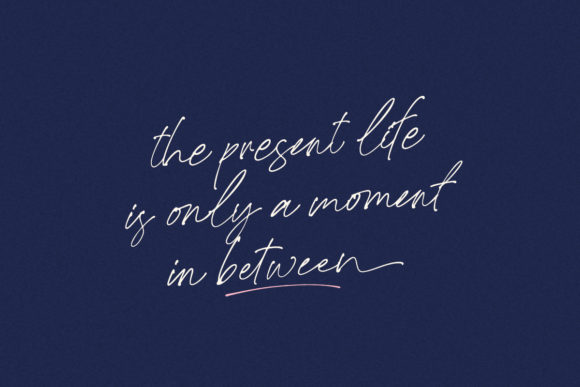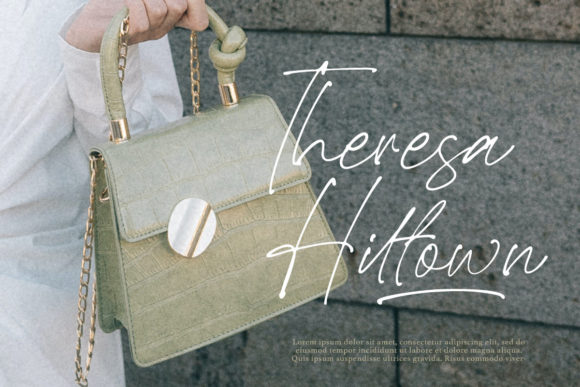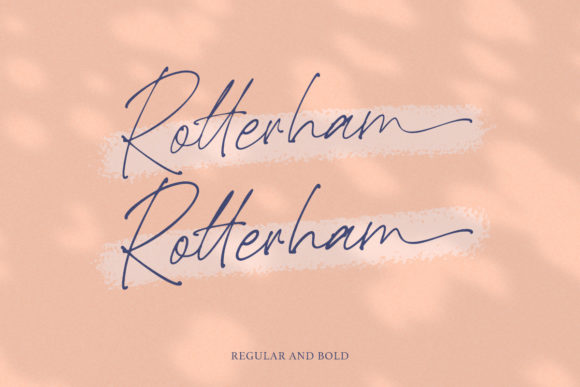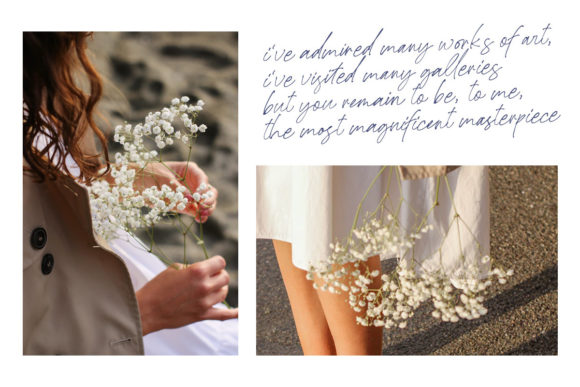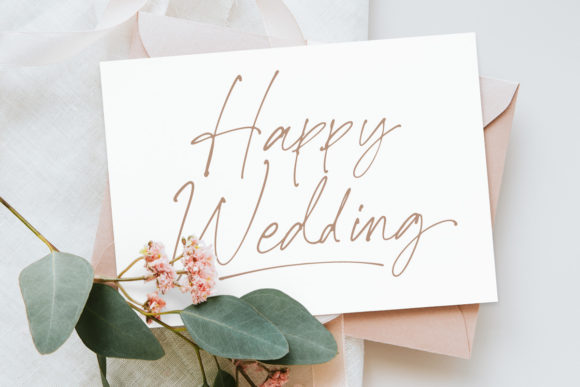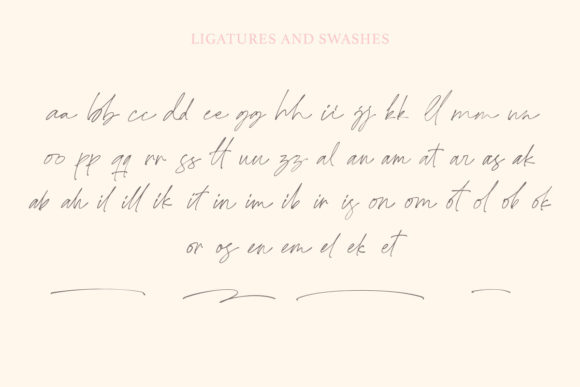
Bellingham Script Font: Elevate Your Designs with Organic Elegance
In the world of typography, script fonts hold a special place for their elegance, personality, and the unique touch they bring to any design project. Among these, the Bellingham Script Font stands out as a remarkable example of organic handwritten beauty, designed to add a personal and sophisticated flair to your creations. Whether you’re a designer looking for the perfect font for a client’s logo, a crafter seeking an elegant touch for packaging, or a writer aiming to give your novel a distinctive look, Bellingham Script is poised to become your go-to choice.
The Charm of Bellingham Script
Bellingham Script is not just another script font; it’s an artistic expression that brings a sense of warmth and authenticity to your designs. This organic handwritten script font is crafted with meticulous attention to detail, ensuring that each letter, ligature, and swash contributes to a cohesive and visually appealing aesthetic. The inclusion of a lot of ligatures and swashes is particularly noteworthy, as these elements allow for a high degree of customization, making every word you type unique and captivating.
One of the key advantages of Bellingham Script is its versatility. This font is not limited to a specific use case but can be seamlessly integrated into various design projects. Here are some of the areas where Bellingham Script truly shines:
- Signatures: Add a personal touch to signatures, making them stand out with elegance and sophistication.
- Packaging: Elevate your brand’s packaging with a distinctive font that communicates luxury and quality.
- Logos: Create memorable logos that embody the essence of your brand, thanks to the font’s unique character.
- Invitations: Make your invitations special with a font that exudes warmth and personalization.
- Novels and Publications: Give your book a distinctive look that captures the imagination of your readers.
Why Choose Bellingham Script?
Choosing Bellingham Script for your design projects comes with numerous benefits:
- Unique Aesthetic: The organic nature of the font, combined with its ligatures and swashes, ensures that your designs stand out.
- High Readability: Despite its artistic flair, Bellingham Script maintains a high level of readability, making it suitable for both headings and body text.
- Customization: With a wide range of ligatures and swashes, you have the flexibility to customize your text, ensuring no two designs are alike.
- Ease of Use: Bellingham Script is designed to be user-friendly, allowing designers of all levels to incorporate it into their projects with ease.
Bellingham Script Font is a beautiful addition to the world of typography, offering designers and crafters a unique tool to elevate their creations. Its organic, handwritten aesthetic, coupled with its versatility and customization options, makes it an invaluable resource for anyone looking to add a touch of elegance and personality to their designs. Whether you’re working on a logo, packaging, invitations, or a novel, Bellingham Script is sure to enhance your project with its distinctive charm. Embrace the beauty of handwritten typography and let Bellingham Script be the voice of your brand or creative project.